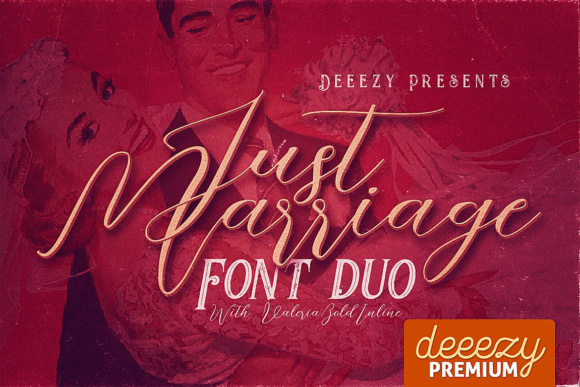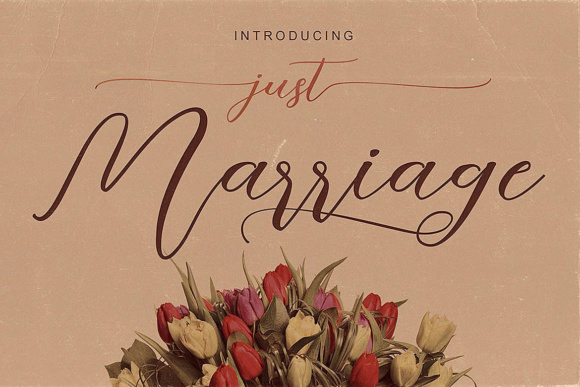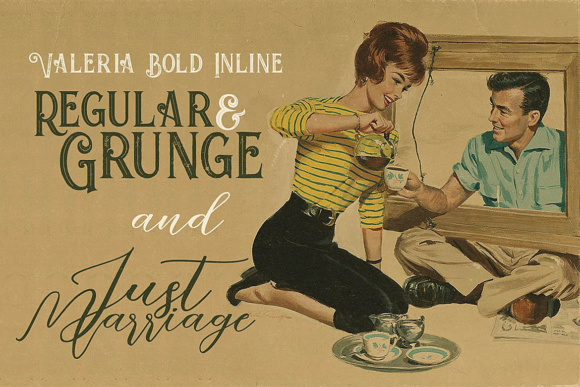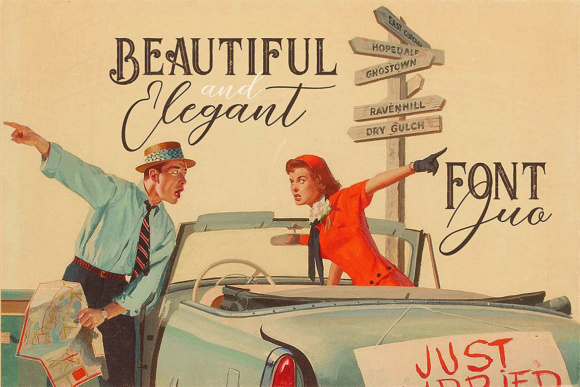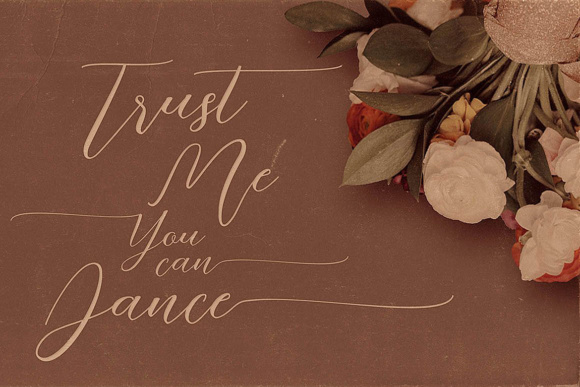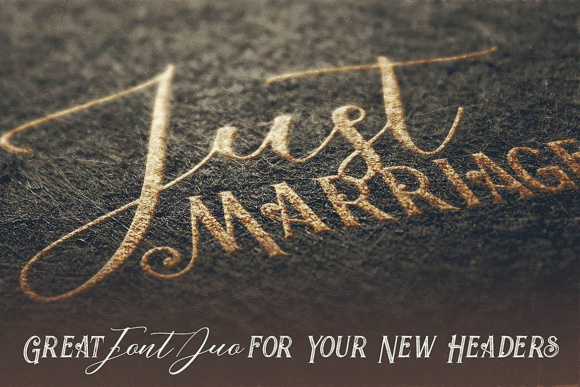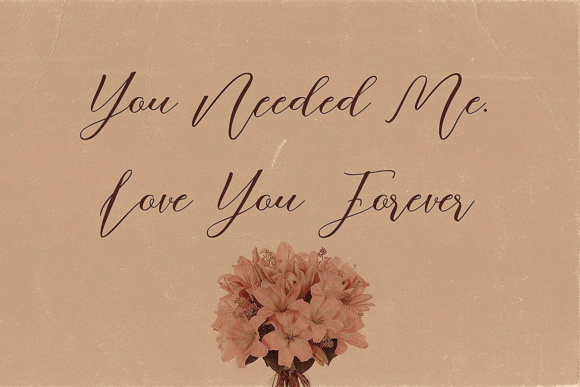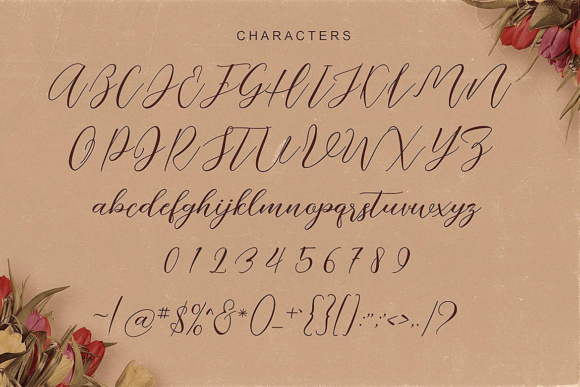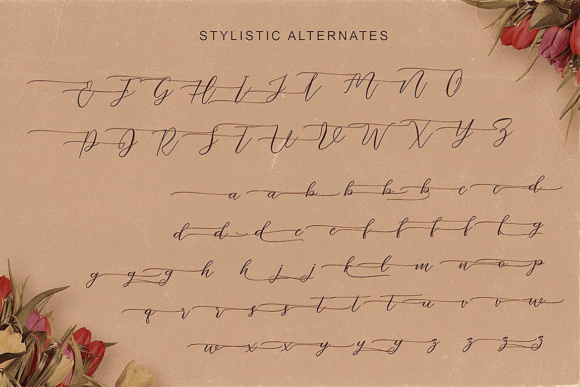
Just Marriage Font
About Just Marriage Font
Just Marriage is a gorgeous retro font, perfect for a wide range of vintage inspired designs. This font download comes with a second font, Valeria, so you can create unique and textured typographic projects.